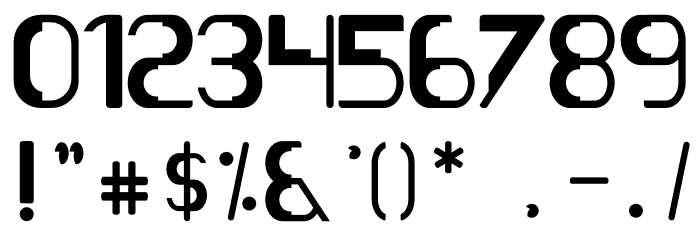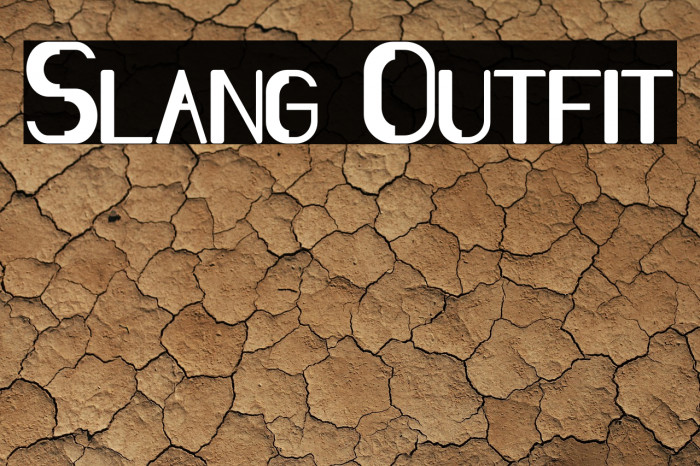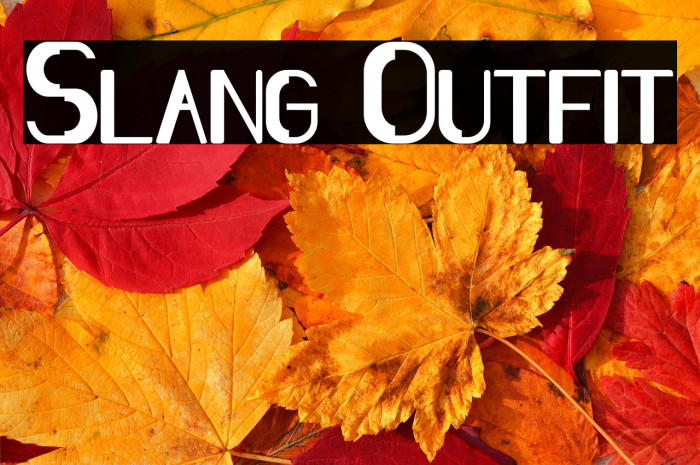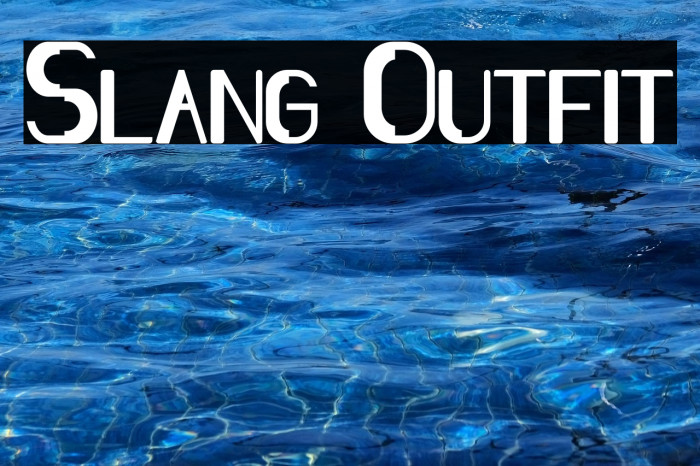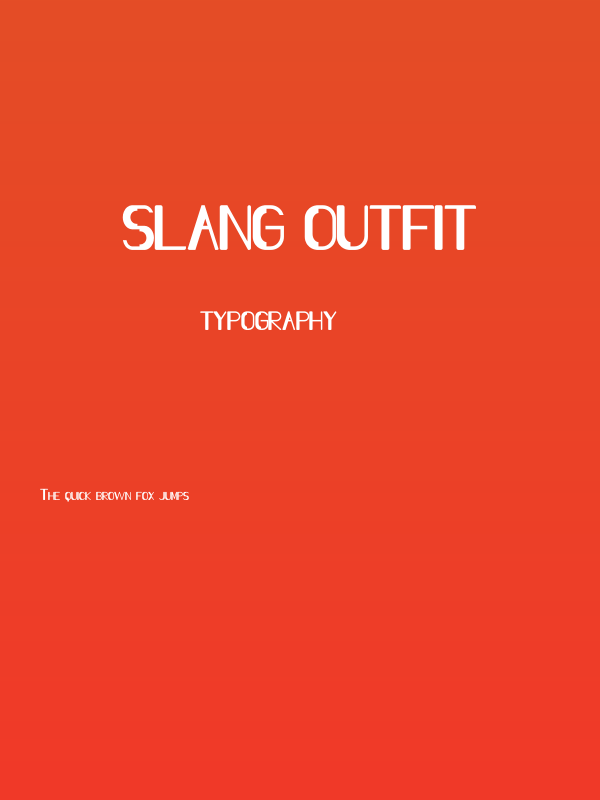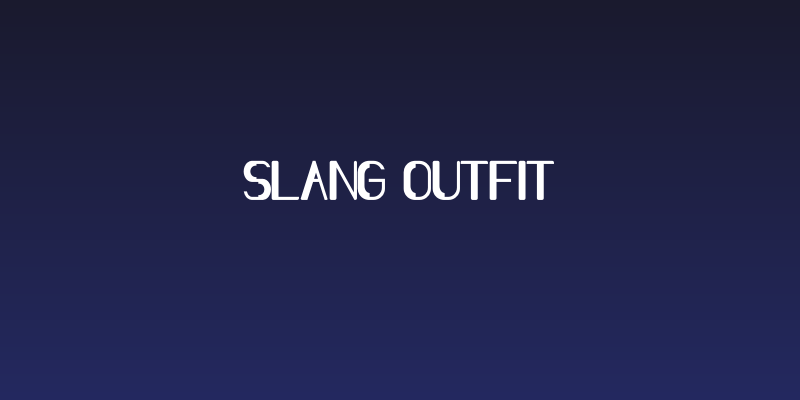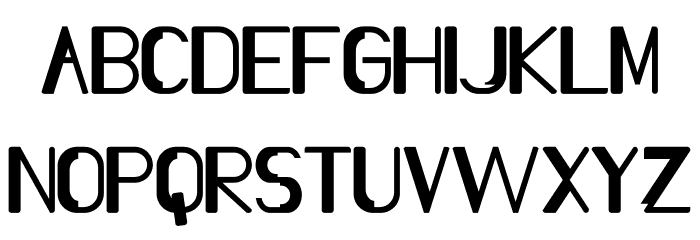
Slang Outfit Font
Slang Outfit Description
This font features a bold and modern design with a distinct geometric structure. The characters have a unique blend of sharp angles and smooth curves, creating a dynamic and eye-catching appearance. The uppercase letters are particularly striking, with a strong presence that commands attention. The numerals and special characters maintain the same bold style, ensuring consistency across all text elements. The font's design is versatile, making it suitable for a variety of applications, from digital media to print. Its boldness and modernity make it ideal for projects that require a contemporary and impactful look.